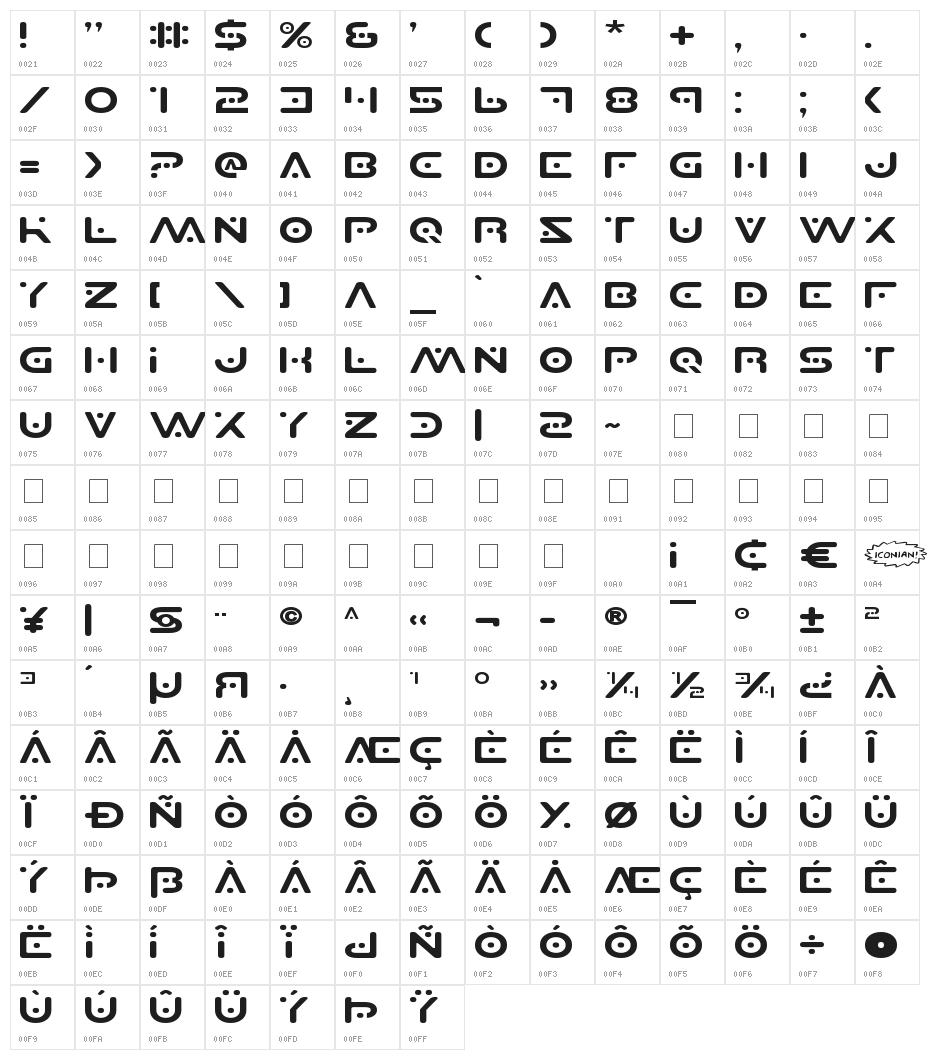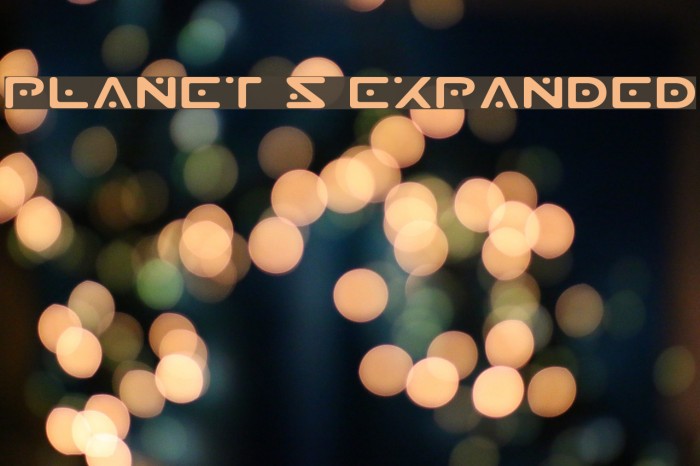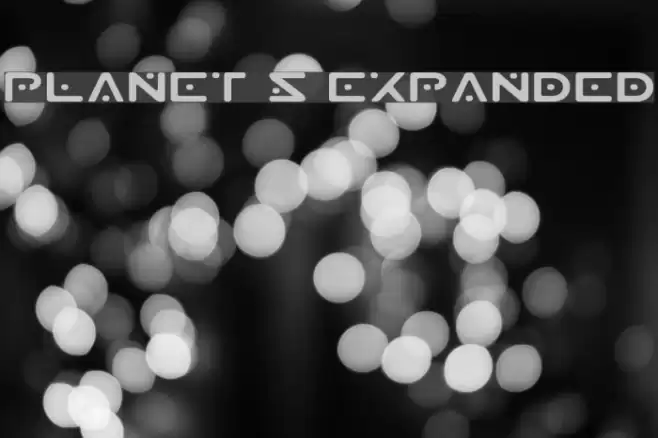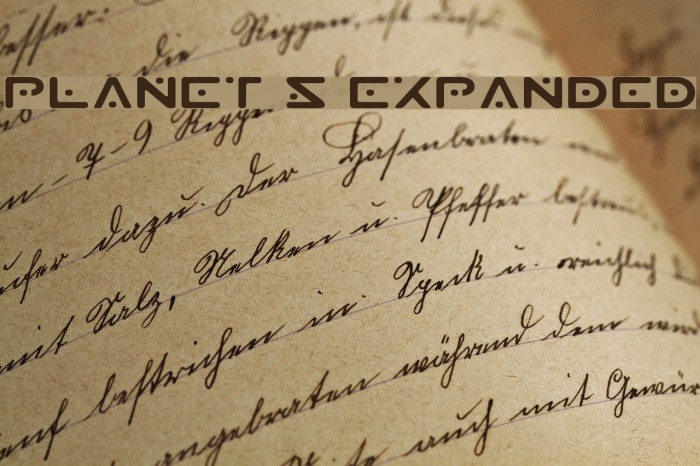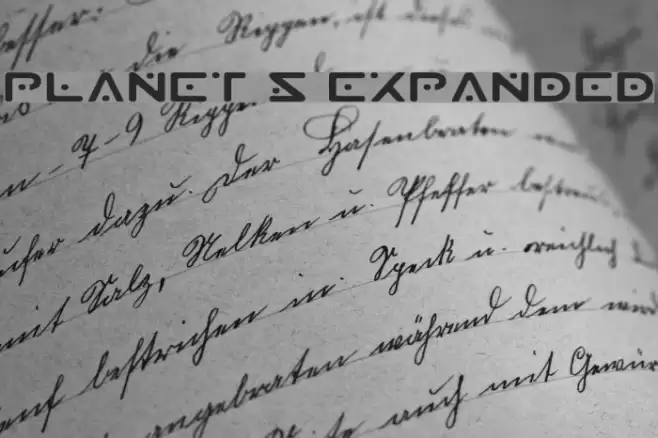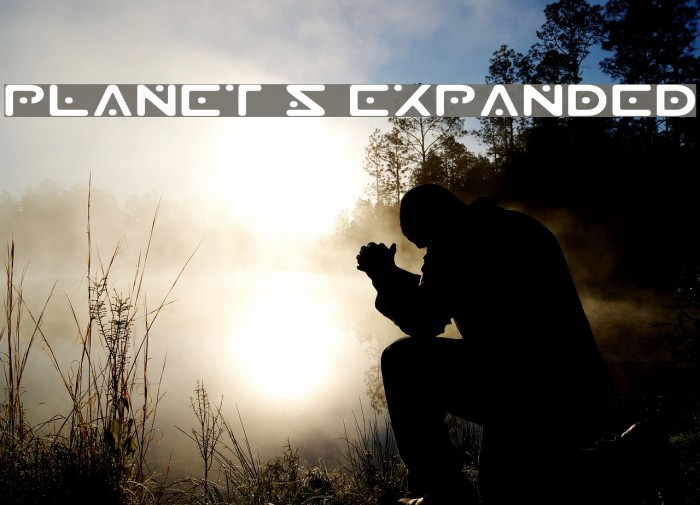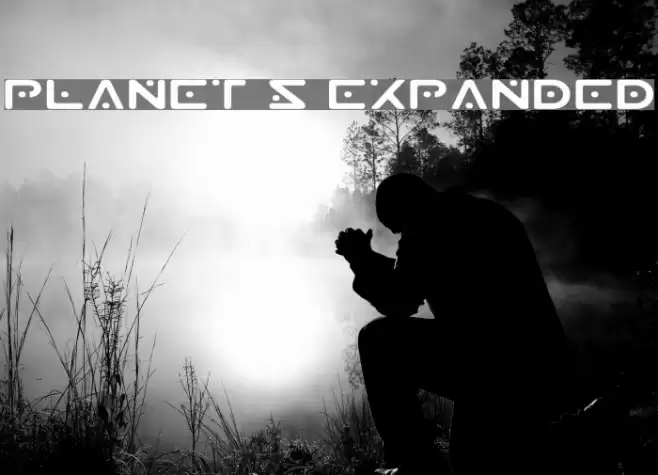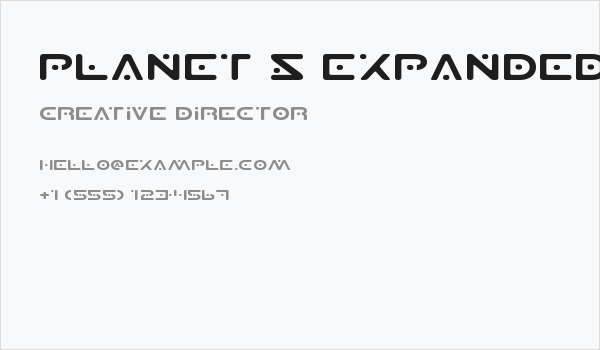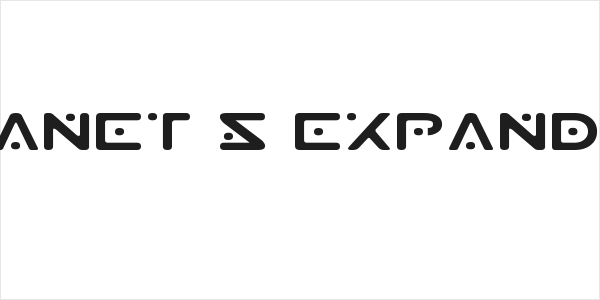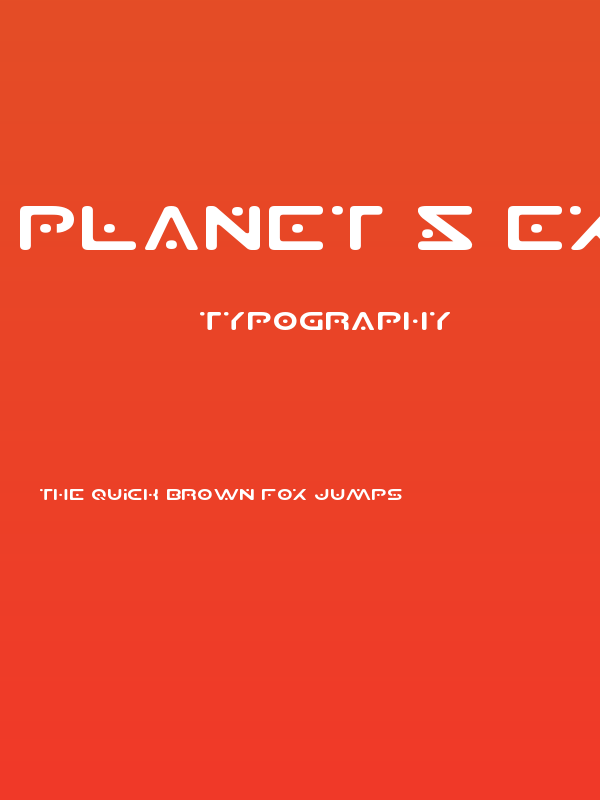
Planet S Expanded Font
Planet S Expanded Description
This font features a futuristic and geometric design, characterized by its unique use of negative space and rounded edges. Each character is crafted with precision, incorporating circular cutouts and angular lines that give it a distinct, modern appearance. The uppercase and lowercase letters maintain a consistent style, with a focus on symmetry and balance. Numbers and special characters follow the same design principles, ensuring a cohesive look across all glyphs. The font's bold and expanded nature makes it ideal for attention-grabbing headlines and display purposes.
| Use Case | Headlines, Logos, Display text |
| Proposed Projects | Ideal for sci-fi themed projects, technology branding, video game titles, and modern poster designs. |